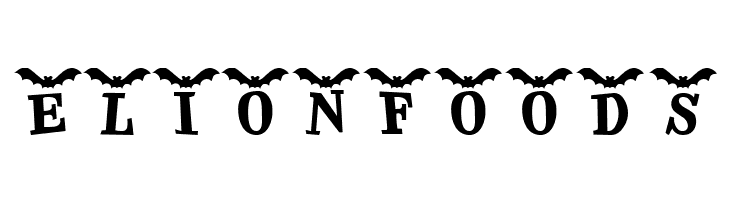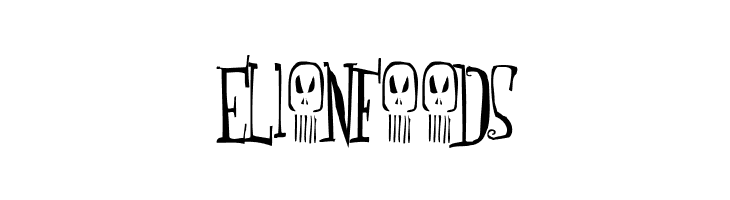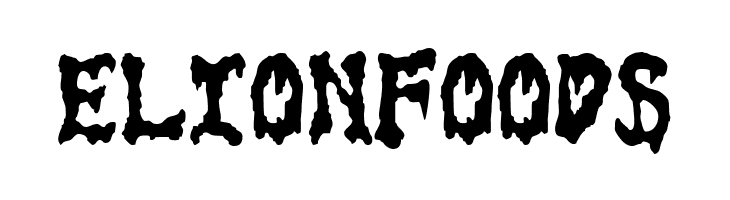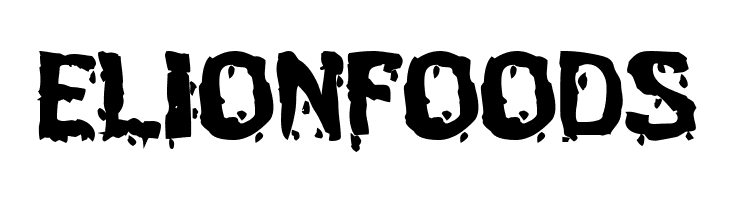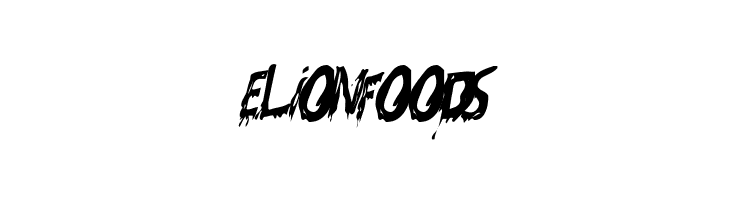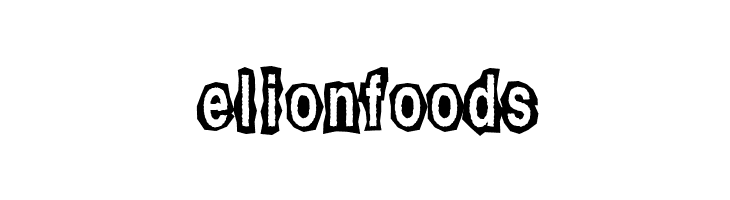
A bold, horror-themed font with dripping, jagged letters.
A bold, playful font with a spooky, Halloween-inspired design.
A bold, dripping font with a horror-themed, melting appearance.
A Halloween-themed decorative font with letters in coffin shapes and skeletons.
Horror-themed decorative dingbats.
A decorative, Halloween-themed font mimicking warning signs with bold, high-contrast characters.
Halloween-themed dingbat font with spooky illustrations.
A playful, vampire-themed decorative font with bold, sans-serif letters encased in cartoonish vampire figures.
A playful, bat-themed decorative font ideal for Halloween designs.
A dripping, horror-themed font with a melting appearance.
A bold, quirky font with elongated, irregular letterforms and a playful, eerie style.
A jagged, eerie font with sharp edges and a horror-inspired aesthetic.
A decorative Halloween-themed font with unique spooky illustrations for each character.
A tall, jagged font with an eerie, playful horror theme.
A spooky, dripping font perfect for horror themes.
A jagged, eerie font with elongated, scratch-like letterforms.
A bold, dripping font with a spooky, shadowed appearance.
A bold, dripping font with a horror-inspired, eerie aesthetic.
A bold, horror-themed font with a dripping, eerie style.